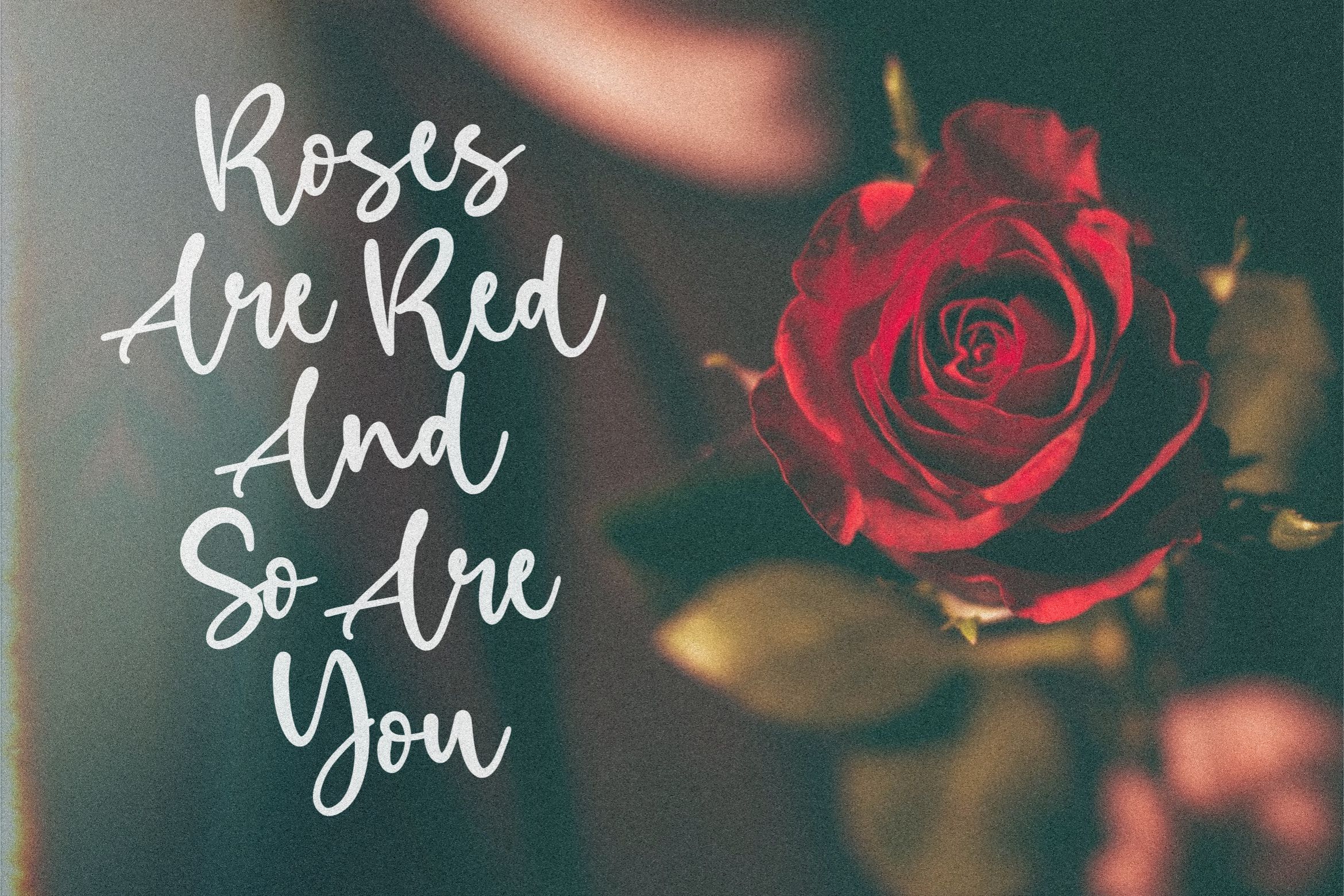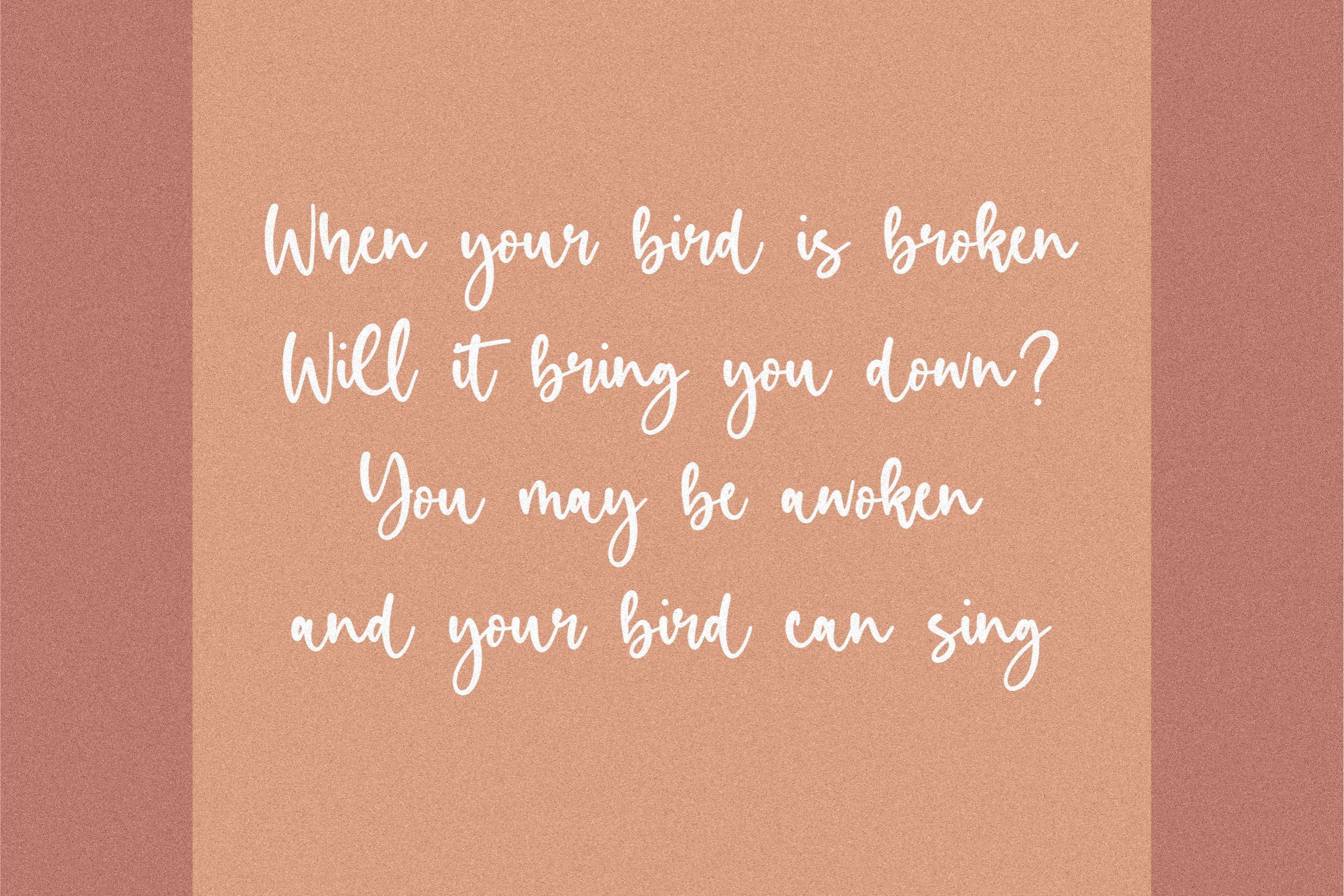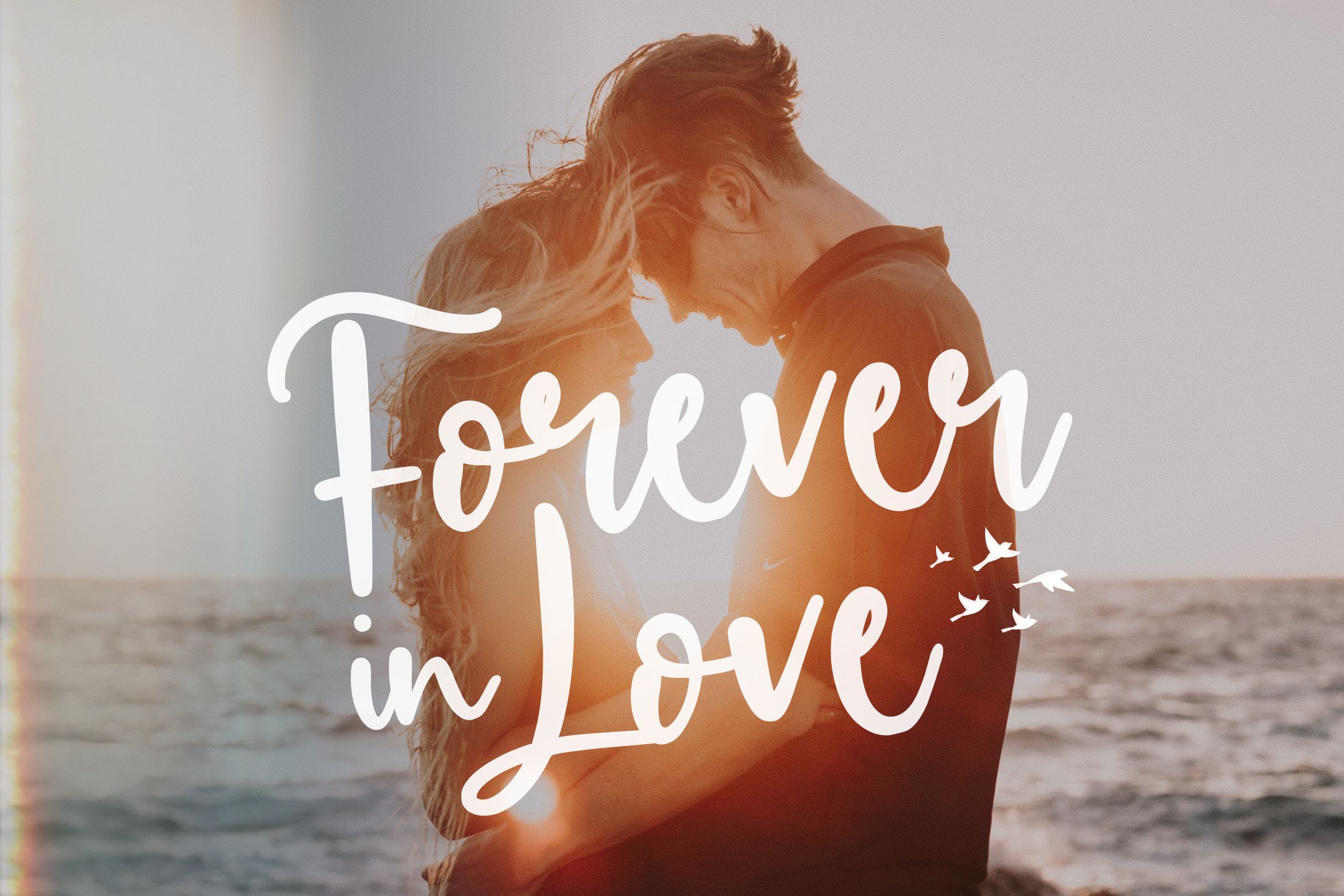
About Birdlove Lovely Handwritten Font
Introducing by Letterative Studio : Birdlove Font Birdlove is a Lovely Handwritten Font Birdlove is a flowing and elegant handwritten font. Sweet and lovely, this font will be ideal for each of the designs that need a dreamy, personalized touch. This font includes : TTF and OTF Birdlove also multilingual support Enjoy the font! Feel free to comment or feedback Send me PM or email Thank you!